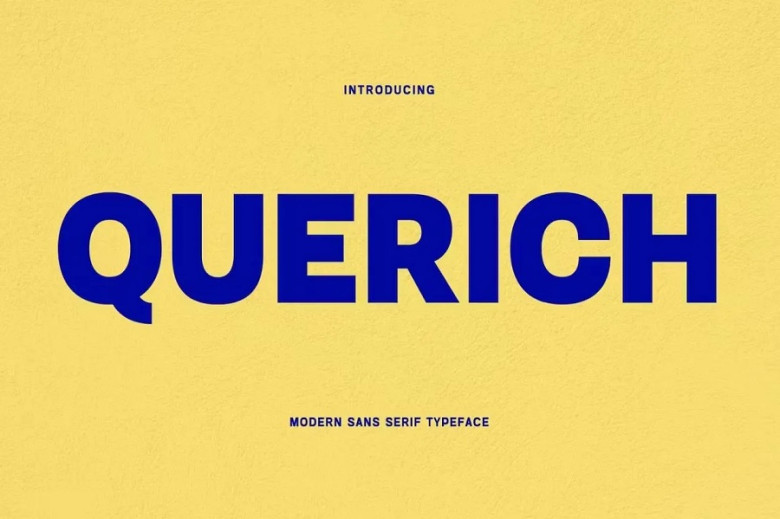
Querich Font
Querich Font, Encased within this amazing typeface are stunning letters. Perfect for modern writing needs and simple to read, its beauty makes this font ideal. Contemporary yet fashionable in its appearance when writing, each letter was meticulously created as part of this font’s creation process – leaving nothing out. Having fun while being creative will yield satisfying results – the “Querich” typeface offers great potential!
Querich Sans Serif Font